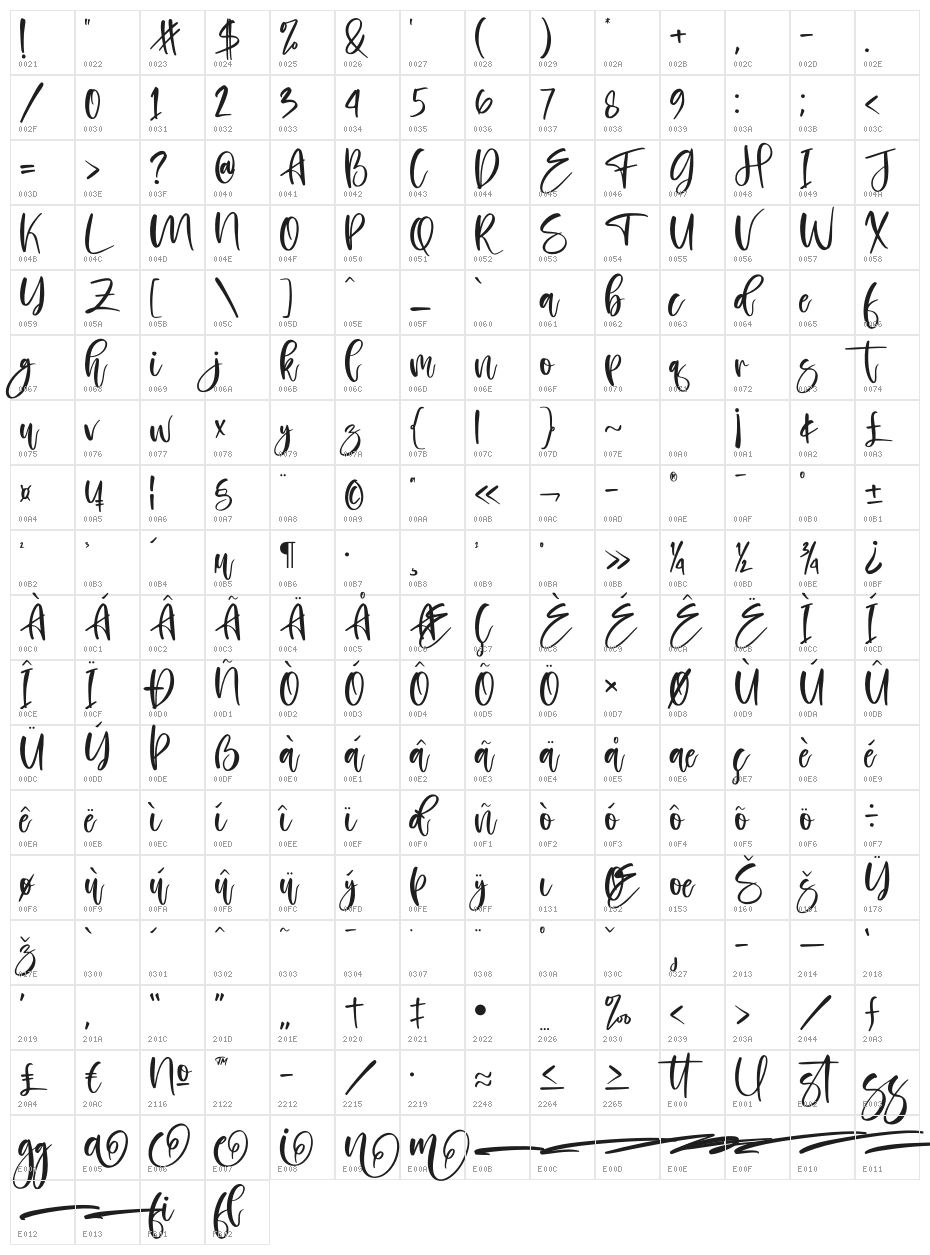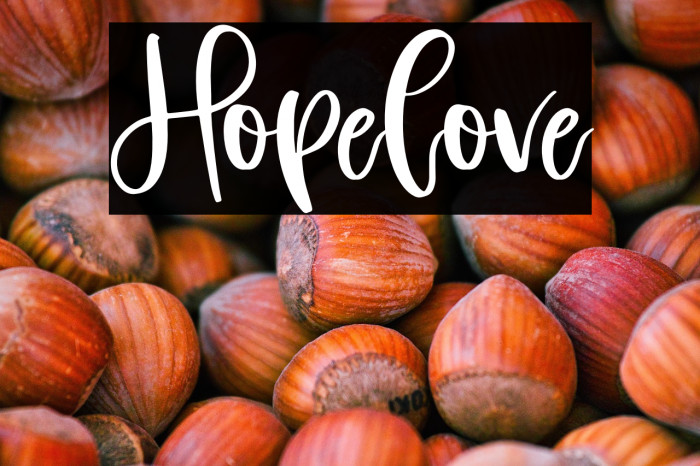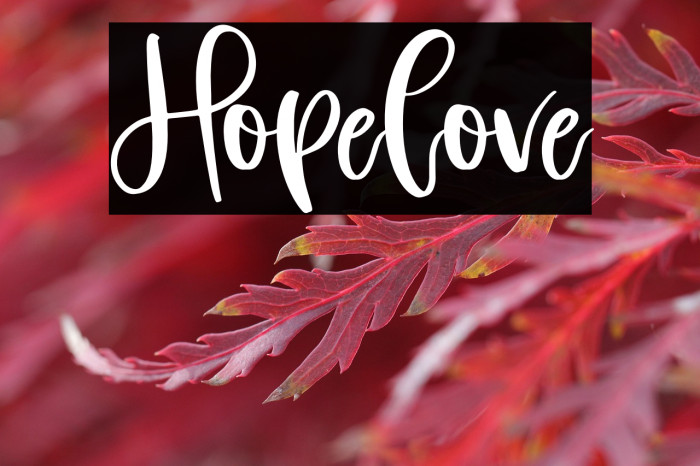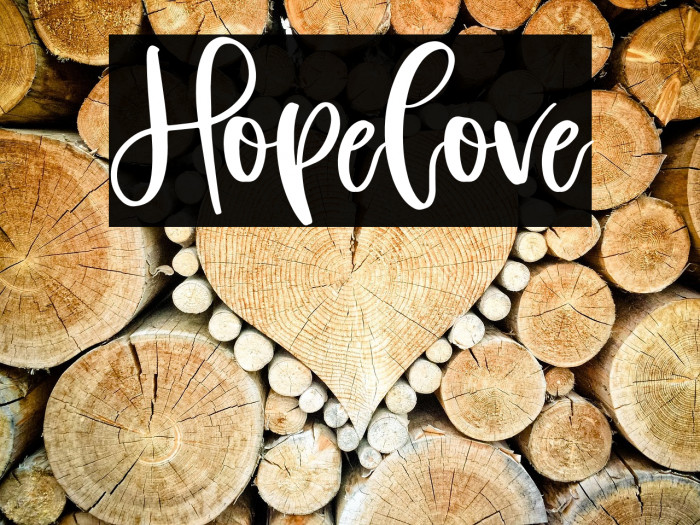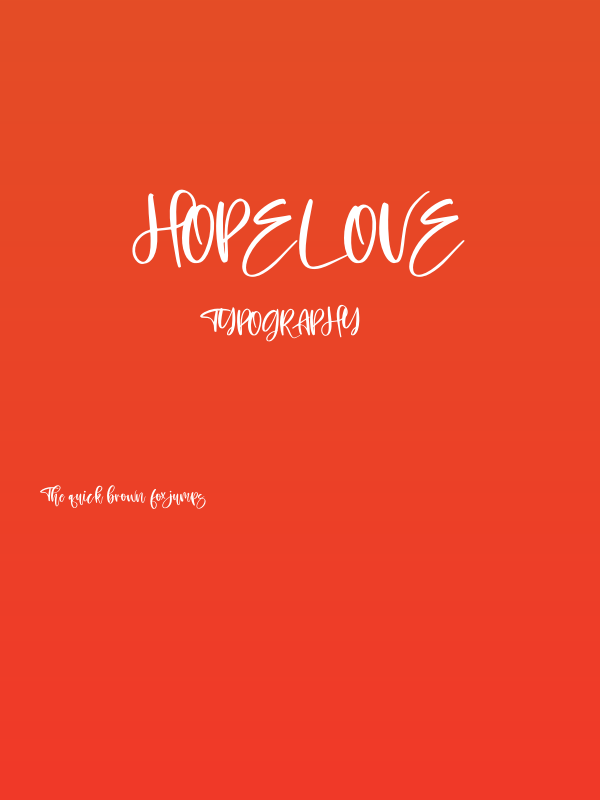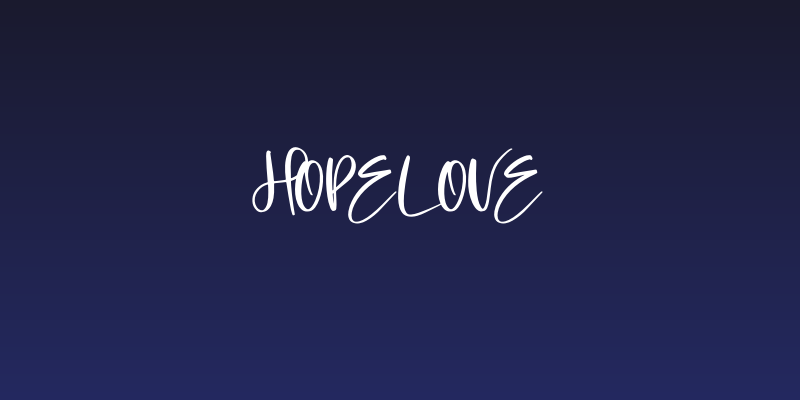
Hopelove Font
Hopelove Description
This font exudes a lively and energetic vibe with its bold, handwritten style. The letters are crafted with a playful flair, featuring exaggerated loops and curves that give it a dynamic and informal appearance. The uppercase and lowercase letters maintain a consistent flow, while the numbers and special characters complement the overall aesthetic. The strokes are thick and confident, adding to the font's bold presence. This font is perfect for projects that require a personal touch or a sense of spontaneity.
| Use Case | Logos, Headlines, Posters |
| Proposed Projects | Ideal for greeting cards, social media graphics, personal branding, and creative posters. |